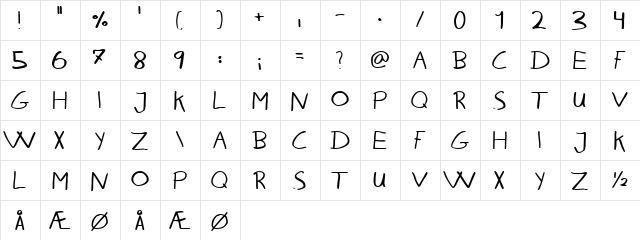
Karen Helenes haandskrift Regular
Design Context for Karen Helenes haandskrift Typeface
Karen Helenes haandskrift is a composed and adaptable typeface that performs quietly and consistently across a wide range of design contexts.